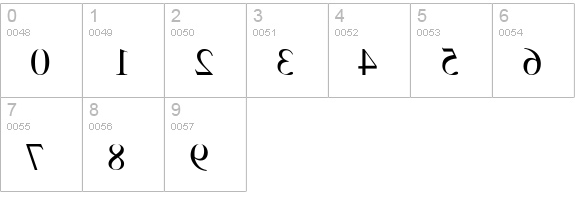
Temps Mirror Font Details
Introducing Temps Mirror font, a stunning typeface that will take your designs to the next level. With its elegant and sophisticated style, Temps Mirror is perfect for adding a touch of class to any project. This font features beautifully designed letters with a unique mirror effect, creating a mesmerizing visual appeal. Whether you're designing a brand logo, creating eye-catching posters, or crafting elegant invitations, Temps Mirror is sure to leave a lasting impression. Its intricate detailing and graceful curves make each letter a work of art, capturing attention and adding a touch of luxury to your designs. But the best part is, Temps Mirror font is completely free! That's right, you can download this remarkable font without spending a dime. Simply head over to FontsMarket.com and discover the endless possibilities this font has to offer. With its extensive character set, Temps Mirror allows you to unleash your creativity and bring your vision to life. Whether you're looking to create a classic, timeless design or something more contemporary and edgy, this font is versatile enough to cater to all your design needs. So why wait? Download Temps Mirror font today and elevate your designs with its exquisite mirror effect. With this font in your toolkit, you'll have the power to create captivating and memorable designs that will leave a lasting impression on your audience. Don't miss out on this incredible opportunity to enhance your design projects for free. Head over to FontsMarket.com and start exploring the endless possibilities with Temps Mirror font now!